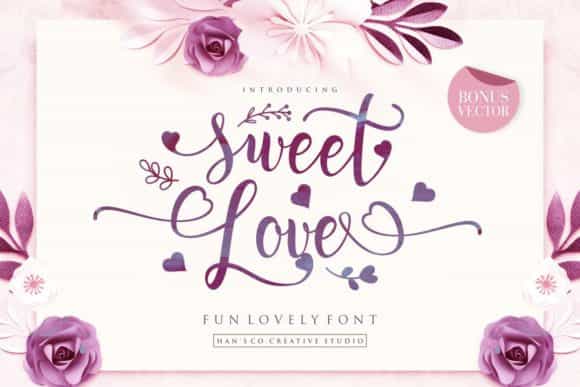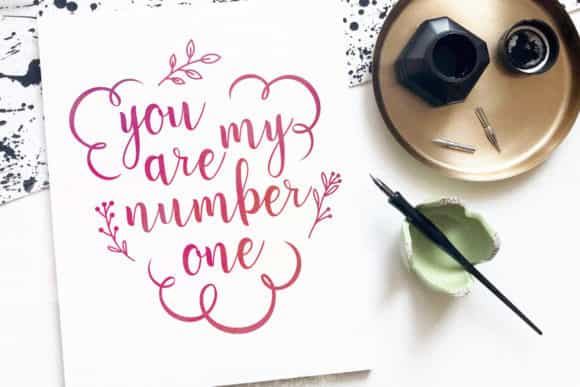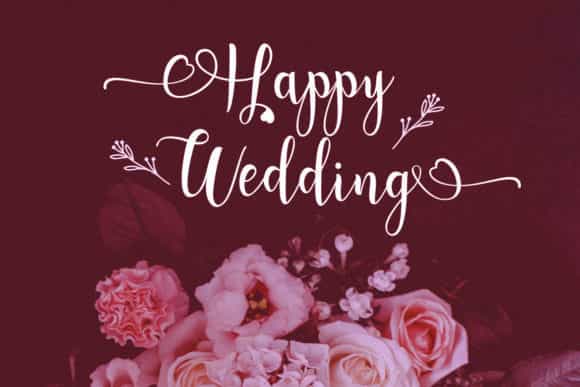
Introducing Sweet Love Font! It is created and posted by Hanscom, but its purpose remains a mystery. Sweet Love Calligraphy is a cute and scrumptious handwritten script that has a very nice touch. And no matter whether you are working on a Valentine’s Day project or a Christmas one, this is the best font to use to make your romantic crafts idea turn into a masterpiece!